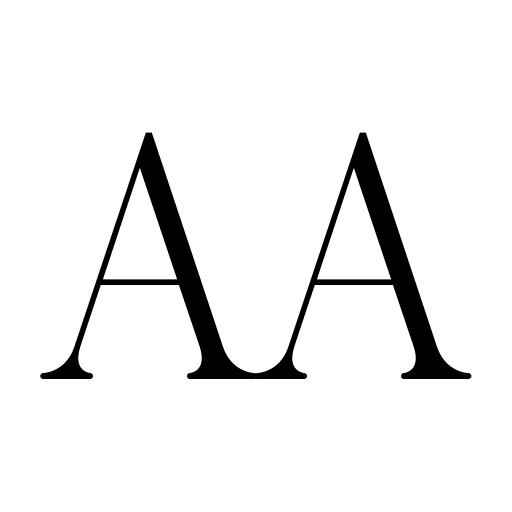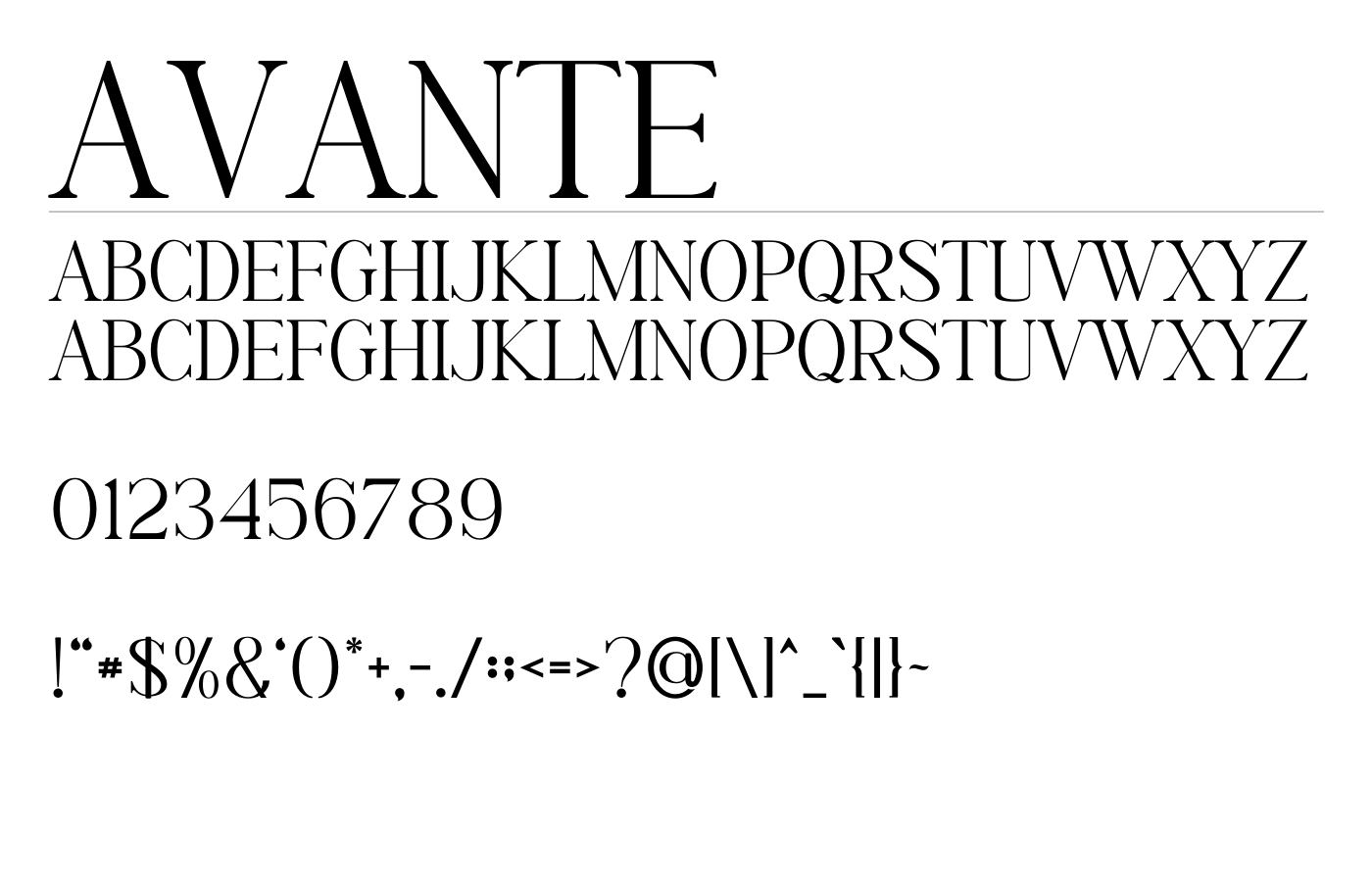
Avante is an elegant serif typeface with a refined, high-contrast design that showcases thin, graceful serifs and slender strokes, giving it a sophisticated, classic appearance. Its tall x-height and distinct letterforms make it ideal for fashion, luxury branding, and upscale editorial use where a timeless, stylish impression is desired. This font works best for headlines and logos that require a delicate yet striking presence.
AVANTE Font
About AVANTE Font
| Font family | AVANTE Font |
| Designer | Biham Santoso |